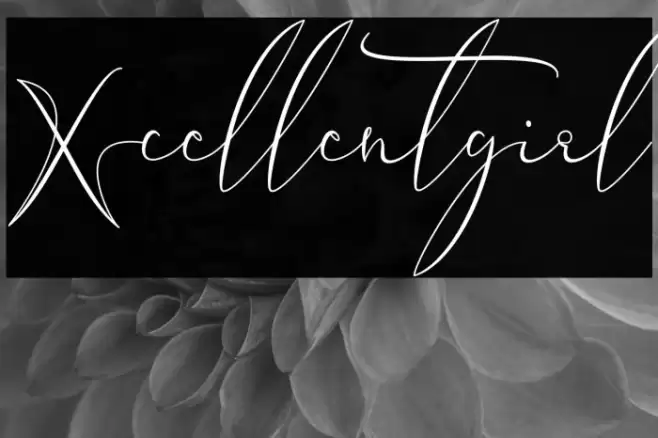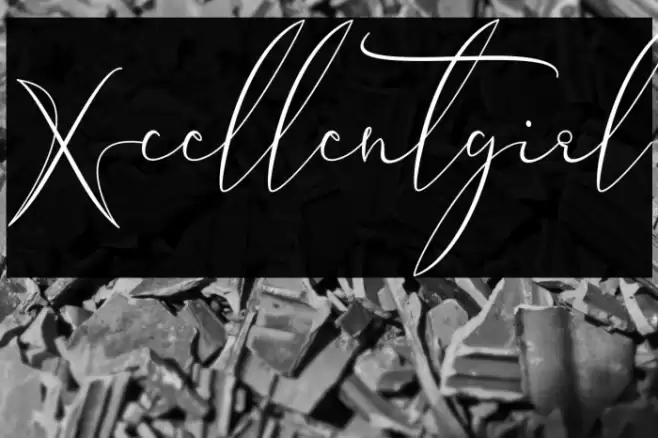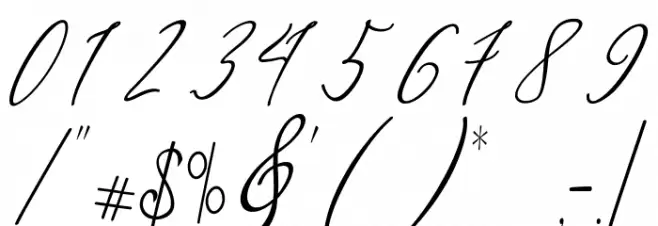
Xcellentgirl Font
Xcellentgirl Description
This elegant script font features flowing, interconnected letters with a graceful and sophisticated style. The uppercase letters exhibit a high level of ornamentation with sweeping curves and loops, while the lowercase letters maintain a more restrained yet equally fluid appearance. The numerals are consistent with the overall design, offering a harmonious blend of style and readability. Special characters are thoughtfully integrated, maintaining the font's cohesive aesthetic. The thin strokes and delicate lines contribute to a refined and airy feel, making it suitable for formal and decorative applications.
An elegant and sophisticated script font with flowing, interconnected letters from Regular fonts.
- Font: Xcellentgirl
- Proposed Projects: Ideal for wedding invitations, elegant branding, personal stationery, and high-end product packaging.
- Weight: Light
- Overall Style: Elegant
- Use Case: Logos, Invitations, Decorative text